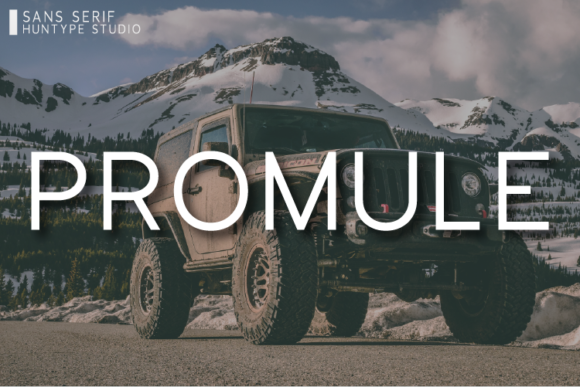
Enter the realm of visual artistry with Promule Font, a sans serif masterpiece designed to elevate your design portfolio to unparalleled heights. Crafted by the visionary minds at Huntype, Promule is a symphony of elegance, striking the perfect balance between smooth curves and sharp edges.
As you immerse yourself in Promule's captivating world, you'll discover a font that transcends the ordinary. Its meticulously crafted characters exude an aura of sophistication, adding a touch of timeless beauty to every design project you undertake. Whether you're a seasoned designer seeking to leave an indelible mark or a creative spirit yearning to explore the boundless realms of visual expression, Promule holds the key to unlocking your true potential.
With Promule as your creative companion, you'll effortlessly transform ordinary designs into captivating masterpieces. Its versatile nature knows no bounds, seamlessly adapting to a myriad of projects, from sleek logos and eye-catching headlines to captivating social media graphics and stunning presentations. Promule's inherent versatility makes it the perfect choice for designers of all skill levels, empowering you to unleash your creativity and leave a lasting impression on your audience.
Beyond its aesthetic appeal, Promule embodies a profound level of functionality. Its crisp and clean lines ensure flawless readability, even at smaller sizes, making it an ideal choice for both print and digital media. Experience the joy of crafting designs that captivate and inform, leaving an indelible mark on the minds of your audience.
Join the ranks of discerning designers who have embraced Promule as their font of choice. Let its elegance and versatility guide you towards design excellence. Promule is not just a font; it's an investment in your creative journey, a catalyst for transforming your design aspirations into tangible realities.